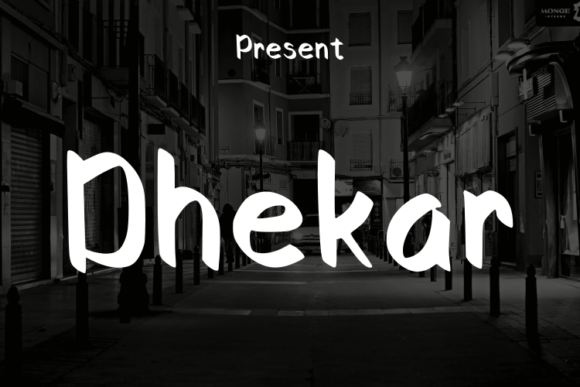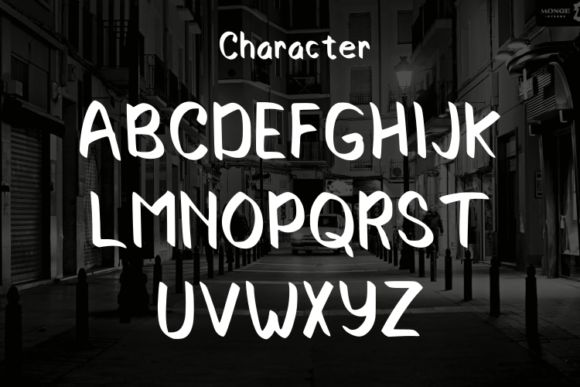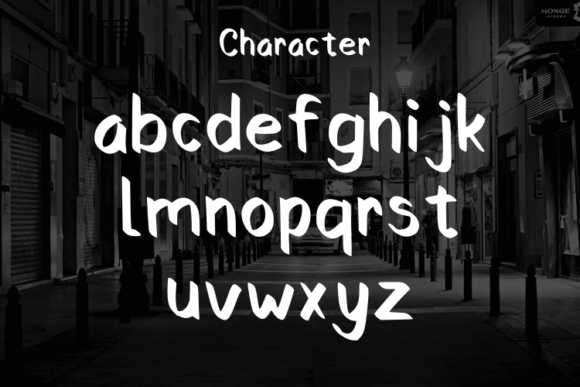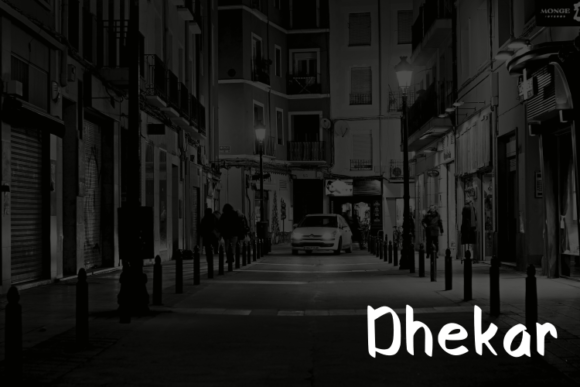
Dhekar Font
About Dhekar Font
“Dhekar” is a stylish script typeface that combines simplicity with a modern aesthetic, making it an excellent choice for various design applications. Its clean lines and contemporary look give it a versatile and sophisticated appearance, making it ideal for elegant and luxurious projects. Whether you’re designing logos, book or movie titles, fashion brands, magazines, clothing, fonts, quotes, or any other creative endeavor, “Dhekar” adds a touch of class and refinement to your designs.
The font’s simple yet modern style provides a clean and polished look, ensuring readability and visual appeal. Its sleek letterforms lend a sense of sophistication and professionalism to any project, making it suitable for high-end branding and upscale designs. Whether used for luxury fashion brands, editorial layouts, or premium product packaging, “Dhekar” elevates the overall design, adding an element of elegance and prestige.
“Dhekar” stands out for its ability to convey a sense of elegance and luxury. Its graceful curves and well-crafted letterforms create a harmonious visual experience, making it perfect for projects that require a high level of sophistication. The font’s versatility allows it to adapt seamlessly to various design contexts, ensuring that it enhances the overall aesthetic of your creations.
One of the notable features of “Dhekar” is its ability to make a statement while maintaining a simple and modern appearance. Its clean lines and contemporary design make it suitable for projects that demand a balance between elegance and simplicity. Whether used for upscale branding or minimalist editorial designs, “Dhekar” adds a touch of refinement that resonates with viewers, leaving a lasting impression.
Embrace the simplicity and modernity of “Dhekar” and explore how it enhances your creative projects. Its clean and elegant style, coupled with its modern look, makes it a valuable asset for designers aiming to create sophisticated and luxurious visuals. With “Dhekar,” you can confidently craft elegant and upscale designs that exude class and sophistication, making a strong visual impact and capturing the essence of luxury and refinement.